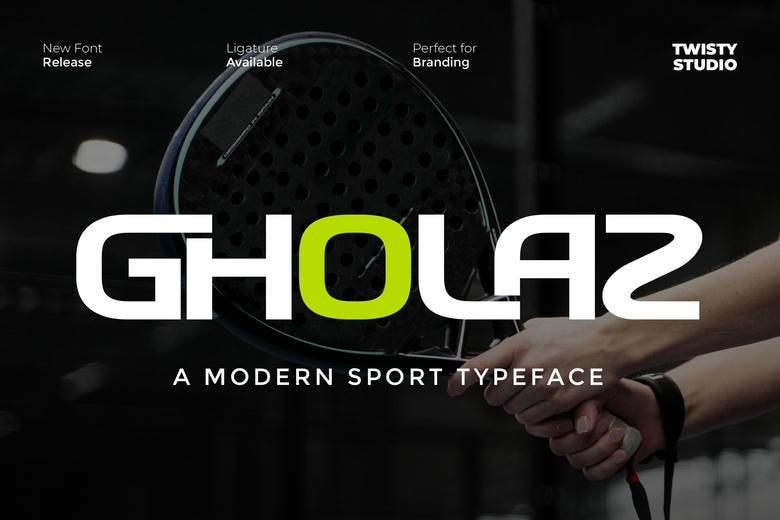
Gholaz Font
Gholaz is a contemporary sport sans serif font designed to deliver strength, speed, and high-impact visual energy. Gholaz is competitive, sharp, and dynamic in its letterforms: it is the lettering type that includes the spirit of competition and performance, which is why this typeface is ideal in those design works, which require attention and intensity.
Gholaz Sans Serif Font